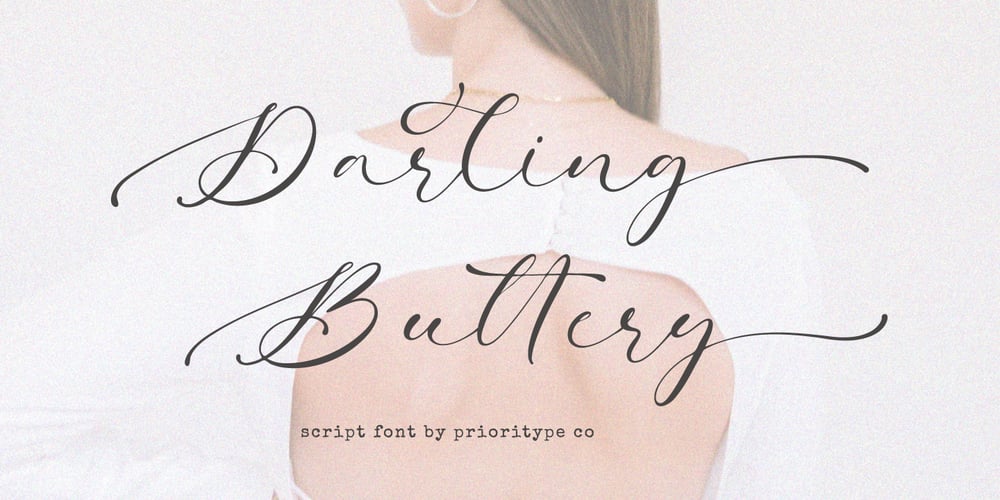
Darling Buttery
Darling Buttery font
Darling Buttery Font Family was designed by Prio Nurokhim Aji and published by Prioritype. Darling Buttery contains 1 styles and family package options. Darling Buttery – Modern Script Font.Beautiful and modern script fonts are ready for you to use in your design projects. Suitable for use in wedding invitation designs, logos, quotes, branding and many more. Features: Uppercase, Lowercase, Numeral, Punctuation, Multilingual, Ligatures & Alternates. Multilingual contained: Afrikaans, Albanian, Asu, Basque, Bemba, Bena, Breton, Catalan, Chiga, Cornish, Danish, Dutch, English, Estonian, Filipino, Finnish, French, Friulian, Galician, German, Gusii, Indonesian, Irish, Italian, Kabuverdianu, Kalenjin, Kinyarwanda, Luo, Luxembourgish, Luyia, Machame, Makhuwa-Meetto, Makonde, Malagasy, Manx, Morisyen, North Ndebele, Norwegian Bokmål, Norwegian Nynorsk, Nyankole, Oromo, Portuguese, Quechua, Romansh, Rombo, Rundi, Rwa, Samburu, Sango, Sangu, Scottish Gaelic, Sena, Shambala, Shona, Soga, Somali, Spanish, Swahili, Swedish, Swiss German, Taita, Teso, Uzbek (Latin), Volapük, Vunjo, Zulu. Thanks!